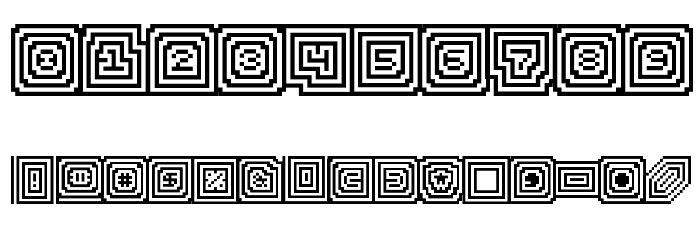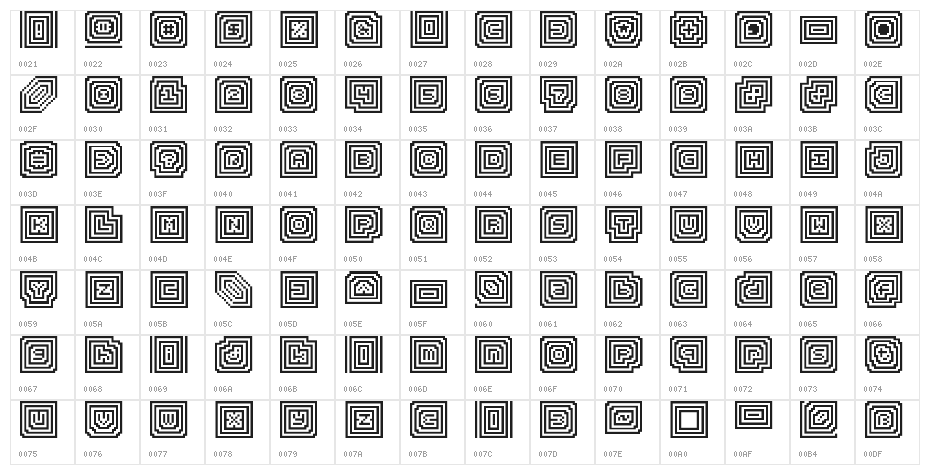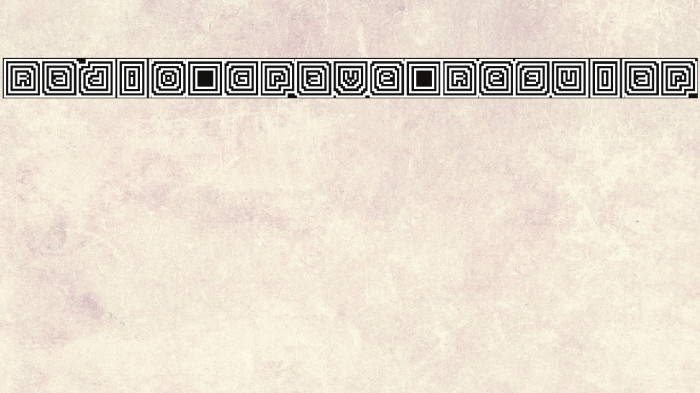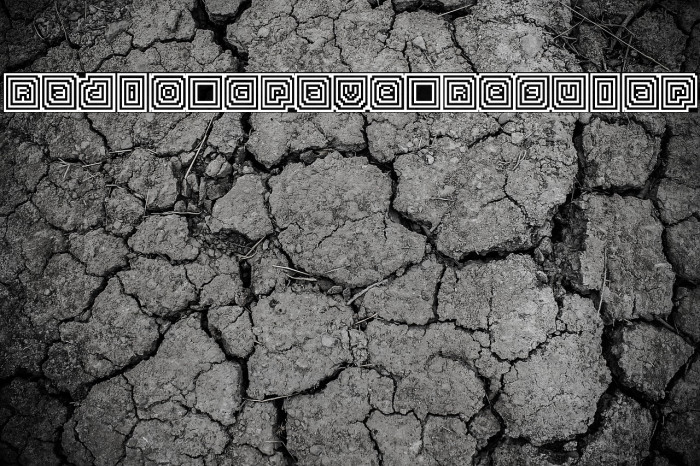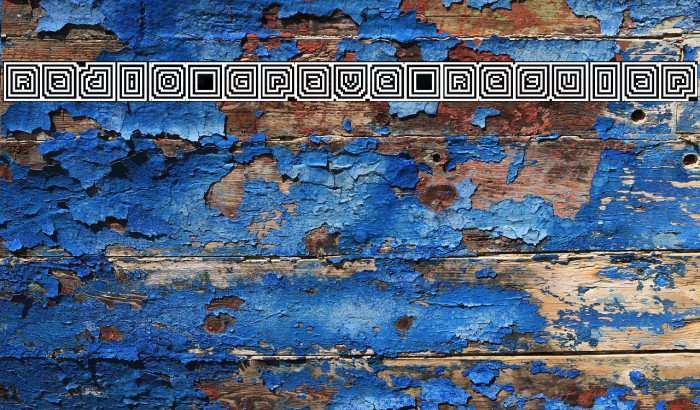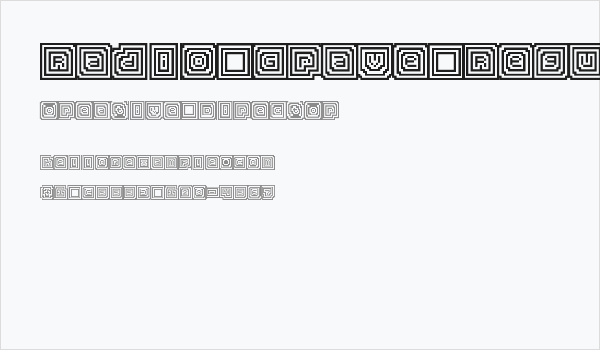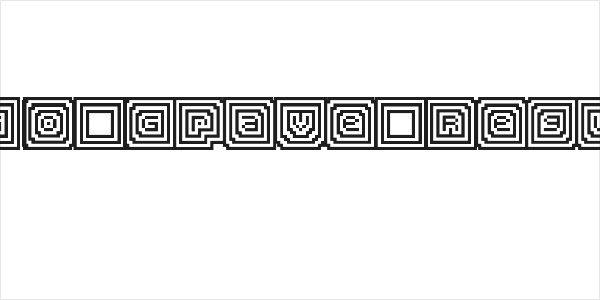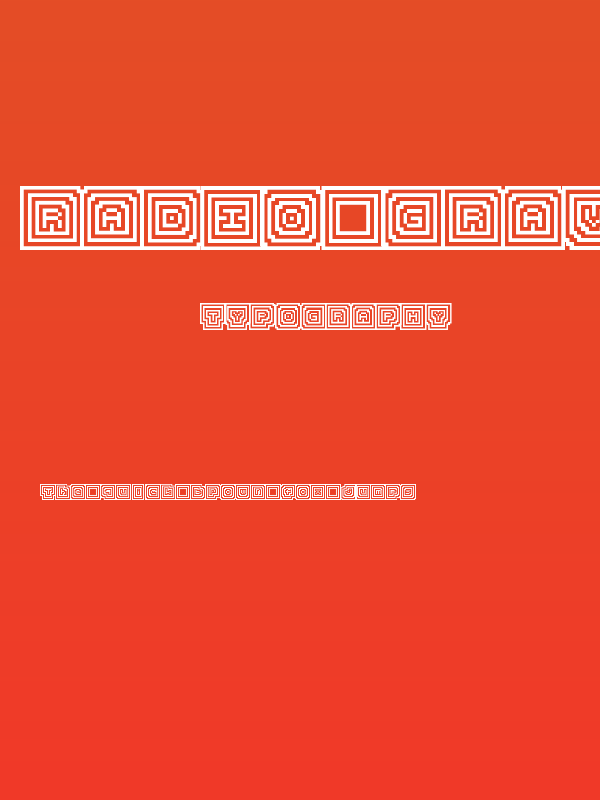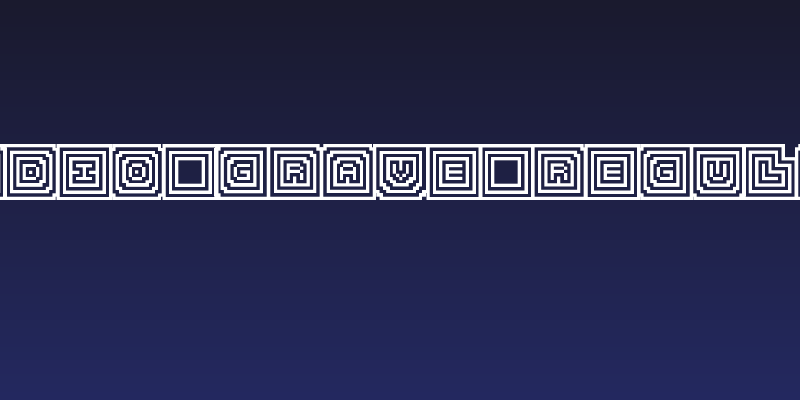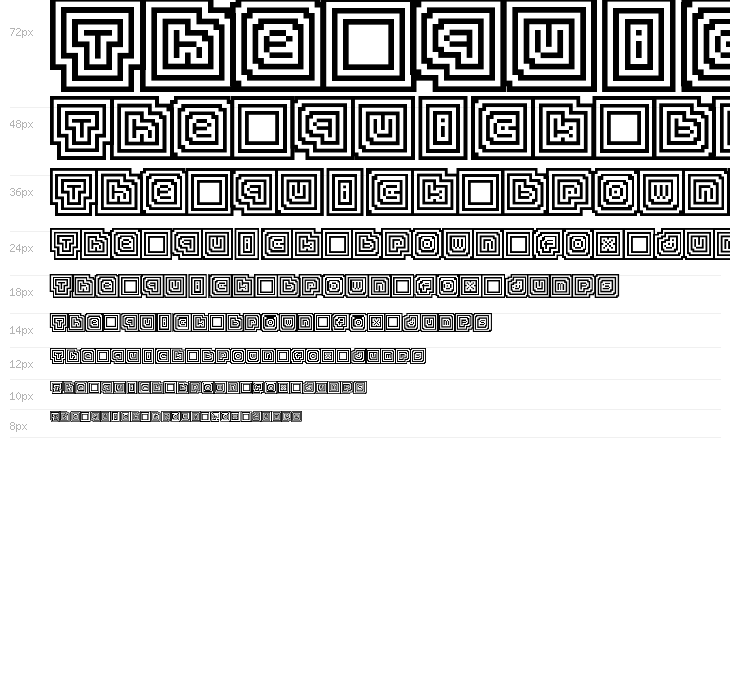
Radio Grave Regular Font
Radio Grave Regular Description
This font features a unique, pixelated design with each character enclosed in a square border. The characters are bold and geometric, reminiscent of retro video game graphics. The uppercase and lowercase letters maintain a consistent style, with sharp edges and a blocky appearance. Numbers and special characters follow the same design principles, ensuring uniformity across all glyphs. The font's distinct style makes it stand out, offering a nostalgic yet modern appeal. Its pixelated nature gives it a digital, tech-inspired look, suitable for projects that aim to capture a retro or futuristic aesthetic.
| Overall Style | Retro, Digital |
| Use Case | Logos, Posters, Digital Art |
| Proposed Projects | Ideal for video game designs, tech-themed posters, digital art projects, and retro branding. |